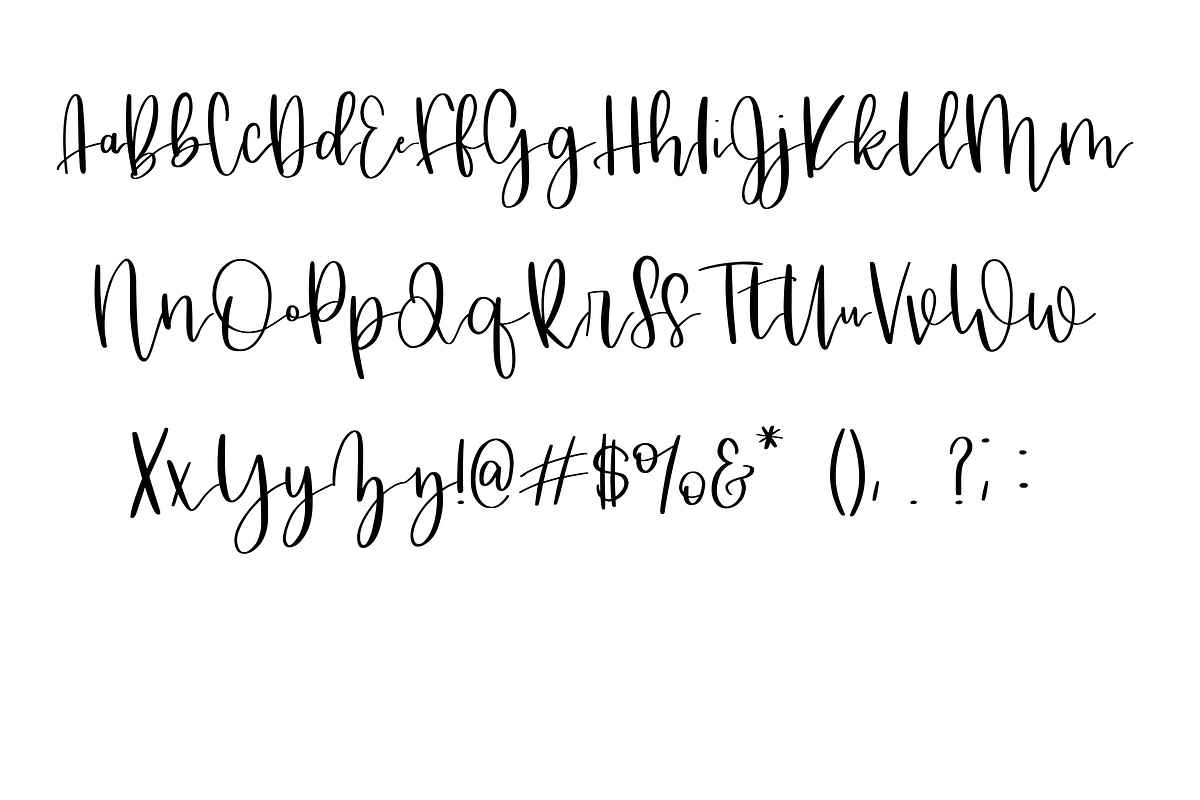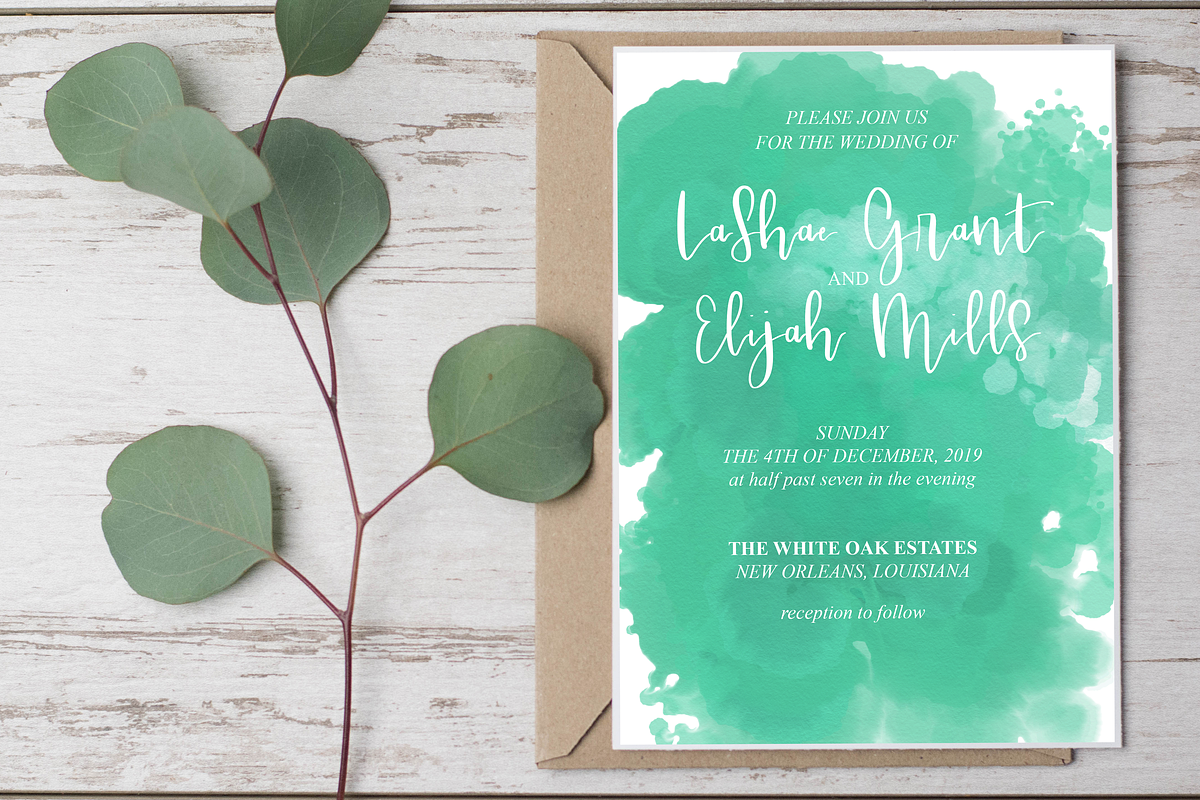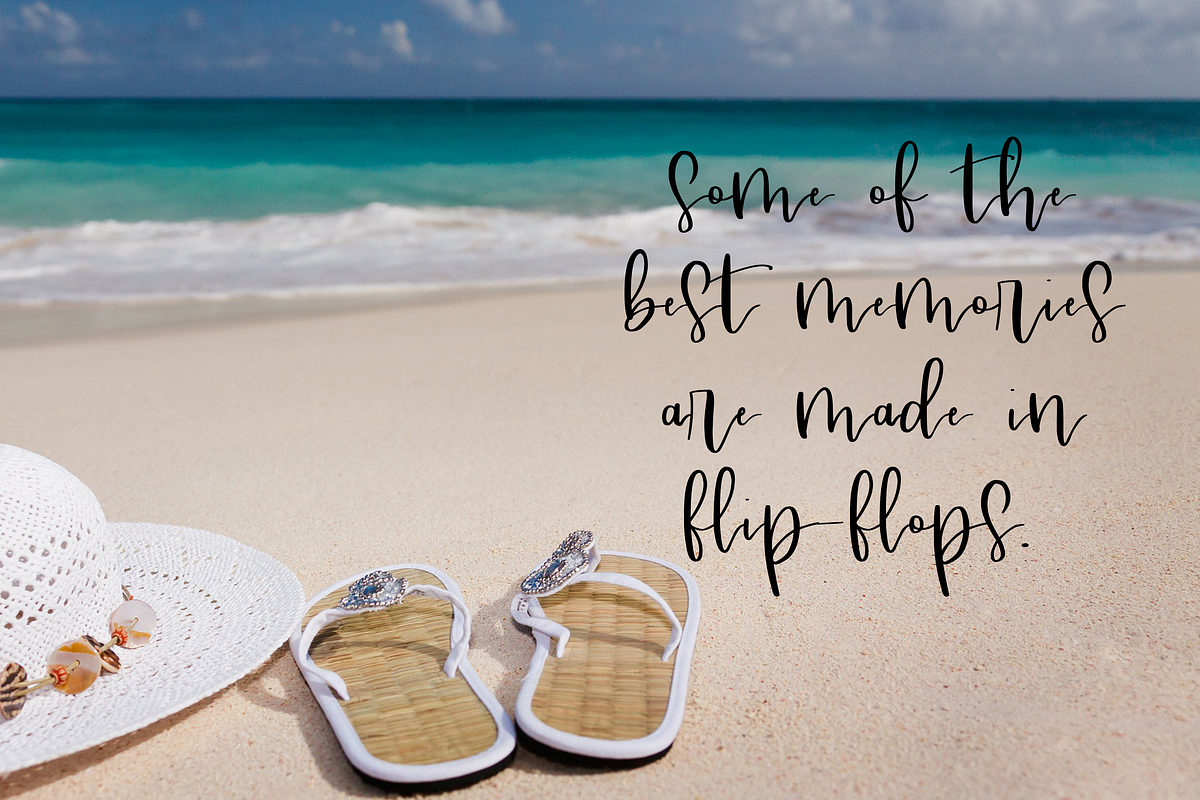
Butterscotch Meringue / a sweet font
Butterscotch Meringue is a cursive handwriting font made by yours truly! This font features thick downstrokes and light upstrokes, mimicking calligraphy techniques. This font is fun, quirky, elegant, and feminine at the same time, and can be used for so many projects, such as:
- greeting cards
- invitations
- posters
- t-shirt designs
- SVG Designs And more...
- Uppercase Characters
- Lowercase Characters
- Multilingual support for various languages: French, Spanish, Italian